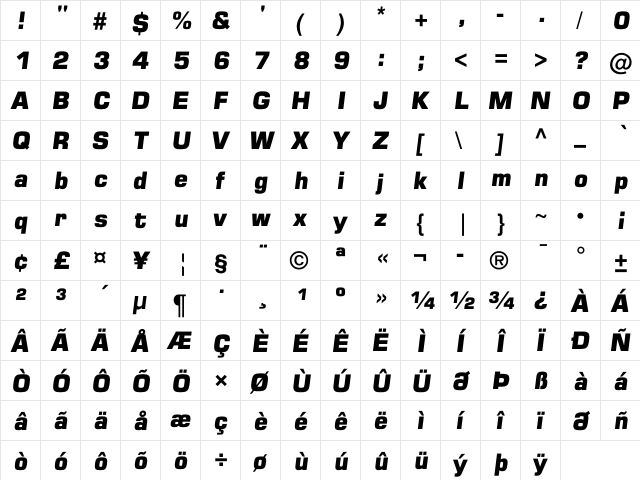
LHF Full Block Italic
| Foundry | Chuck Davis for Letterhead Fonts |
Design Context for LHF Full Block Typeface
LHF Full Block takes a measured approach to typography — its balanced proportions and neutral character make it a reliable workhorse for both digital and print work. Its italic angle brings a sense of urgency and motion to the letterforms.
Pro Tip: Try LHF Full Block for annotation and caption copy alongside an upright companion — the contrast in angle creates a dynamic but ordered typographic system.